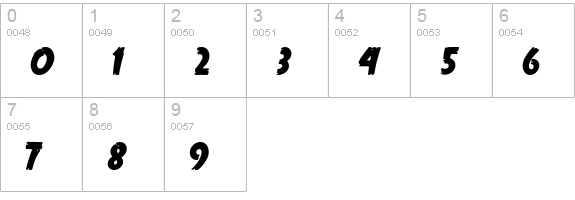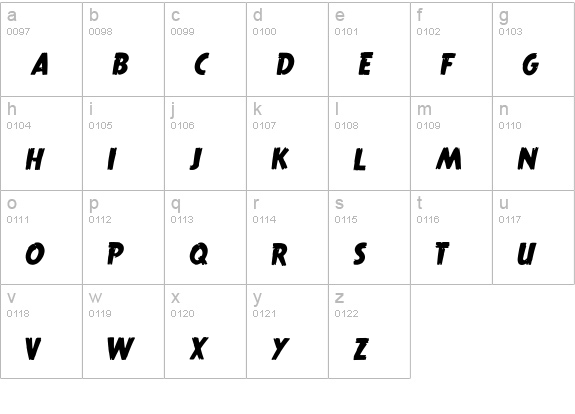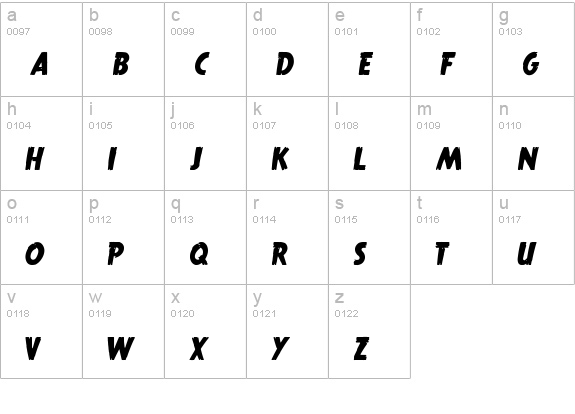
True Crimes Font Details
The True Crimes font is a captivating and mysterious typeface that embodies the essence of crime and intrigue. With its edgy and sharp design, this font captures the attention and leaves a lasting impression. Each letter is meticulously crafted to evoke a sense of suspense, making it perfect for headlines, book covers, and movie posters. True Crimes font is not only visually striking but also versatile, allowing you to create a wide range of designs from thrilling thrillers to gripping detective stories. Its bold and commanding presence on the page commands attention and adds a touch of drama to any project. What makes the True Crimes font even more enticing is that it is freely available to download at FontsMarket.com. This means that you can effortlessly incorporate this font into your designs without any additional cost. It's a fantastic opportunity to enhance your creative work and bring your crime-themed projects to life. With its sleek lines and intricate details, the True Crimes font will undoubtedly captivate your audience and give your designs an extra layer of authenticity. So go ahead, download the True Crimes font today and unleash your creativity in the world of crime and mystery.